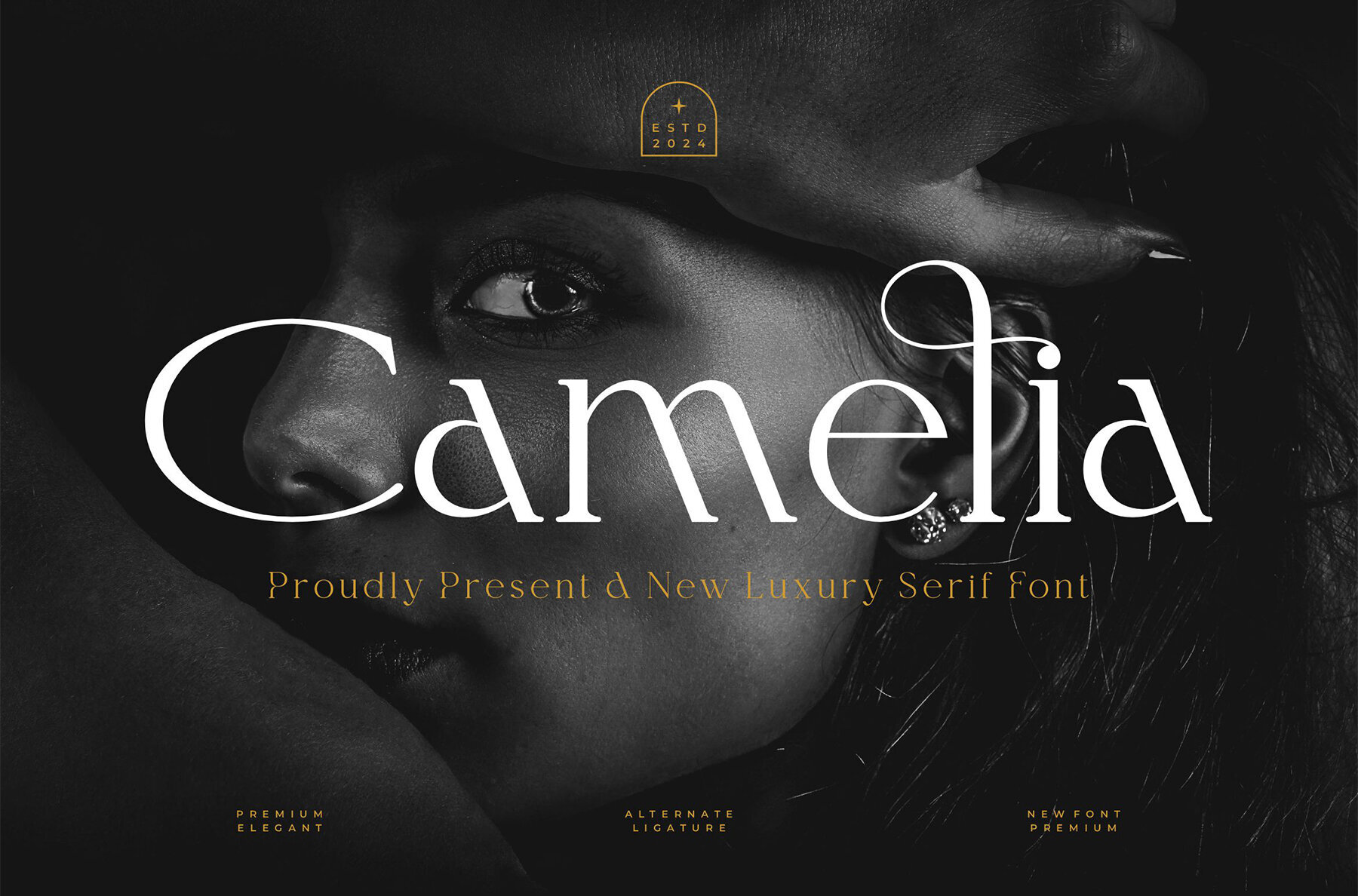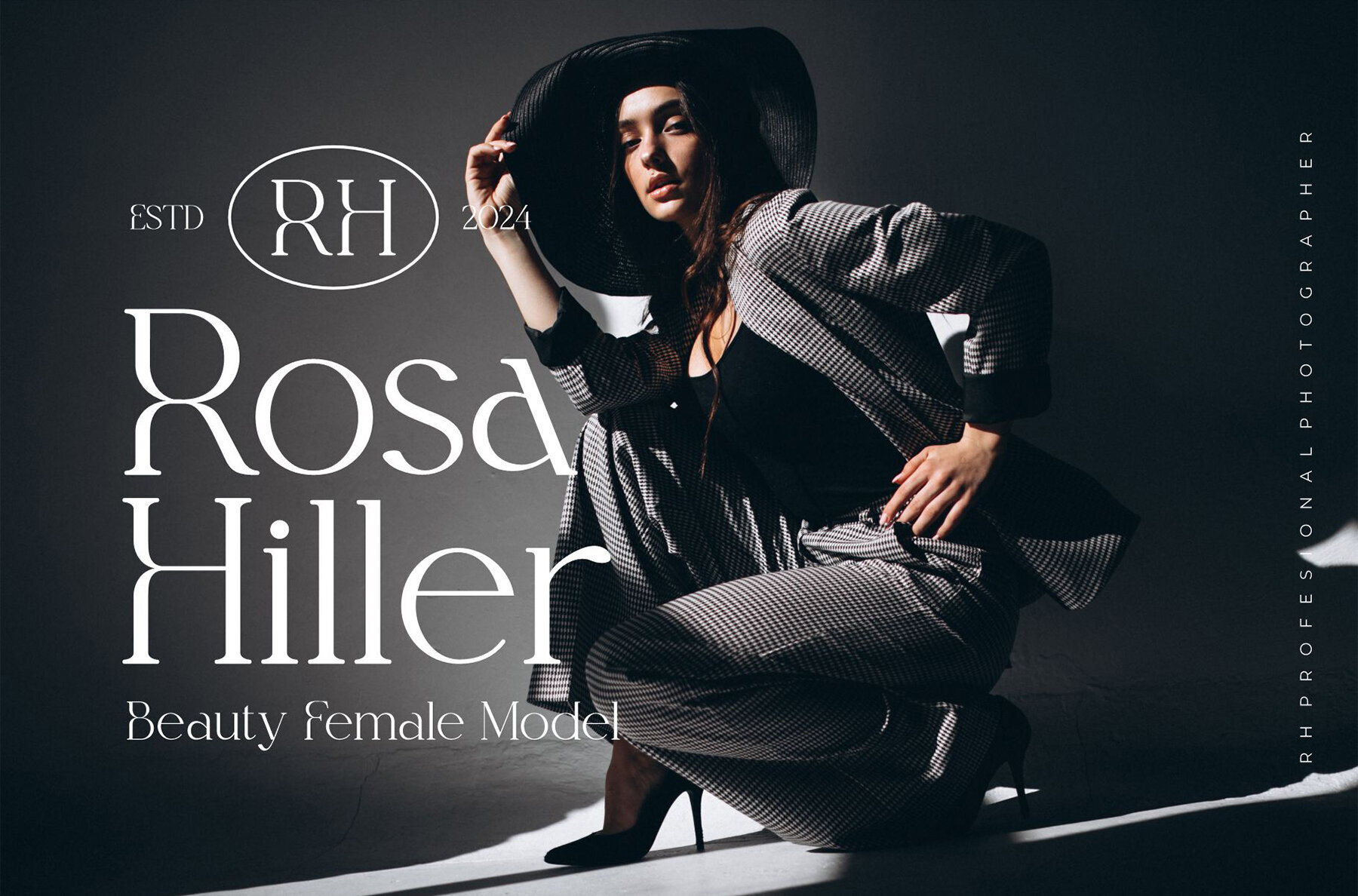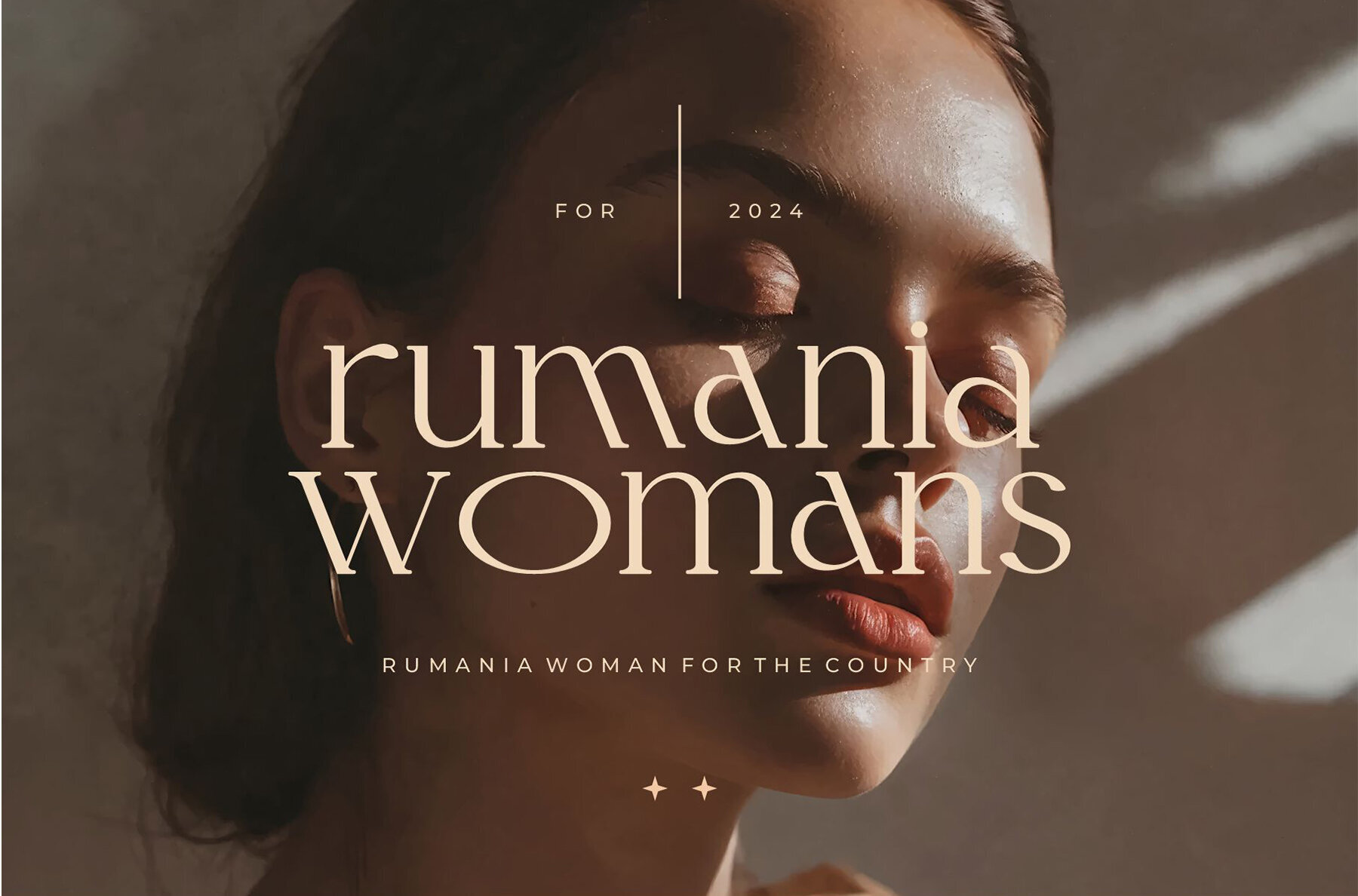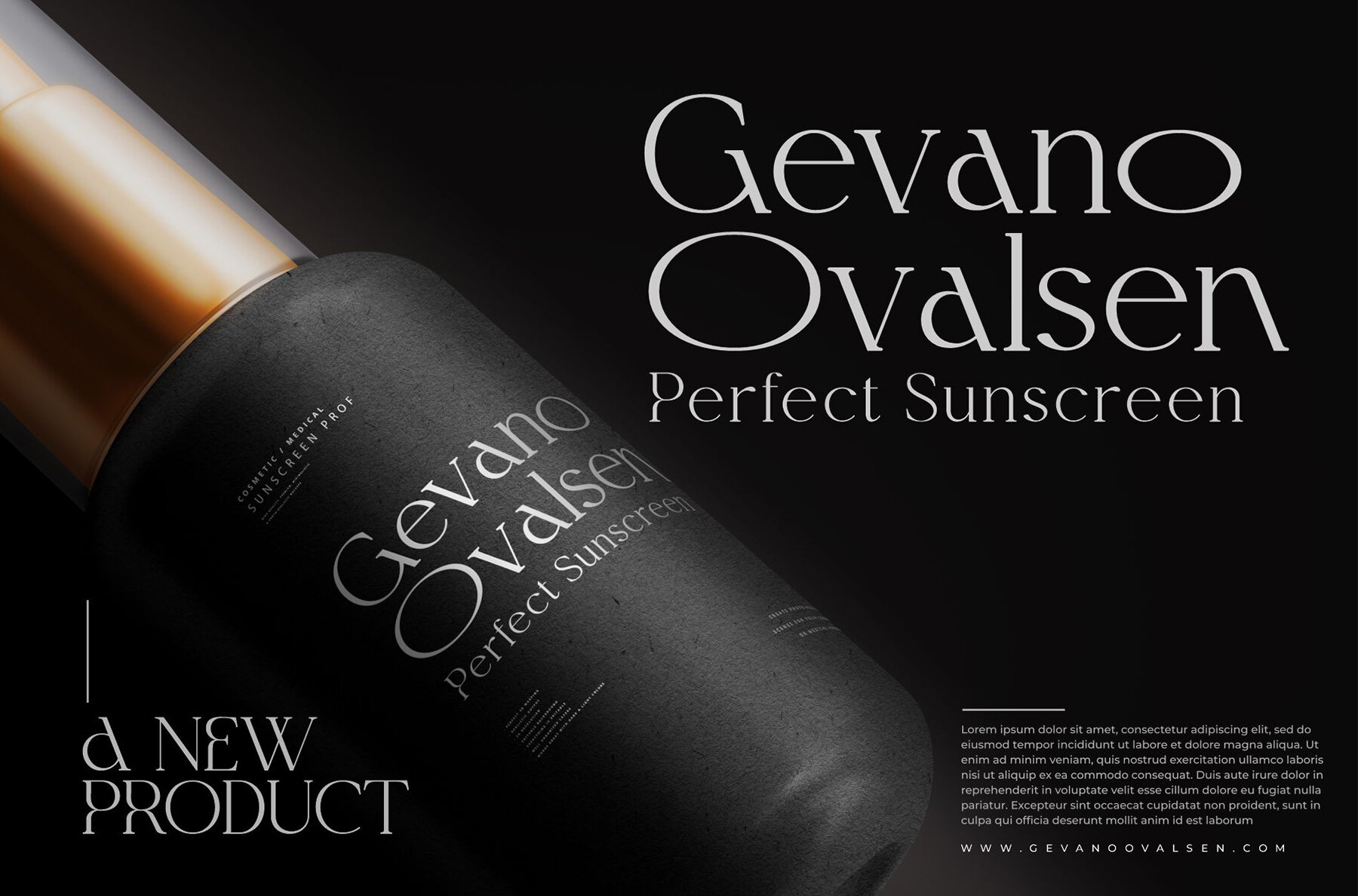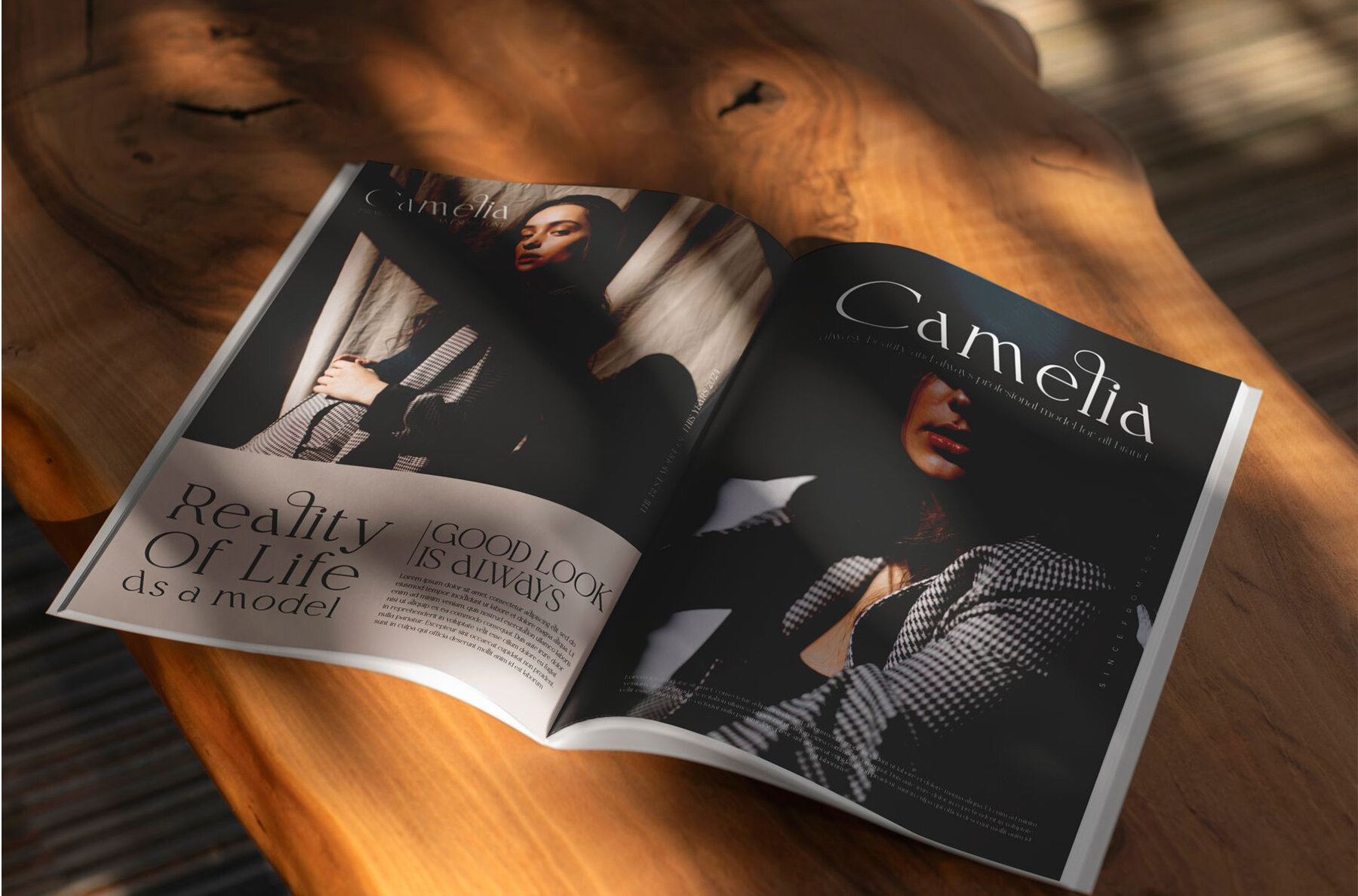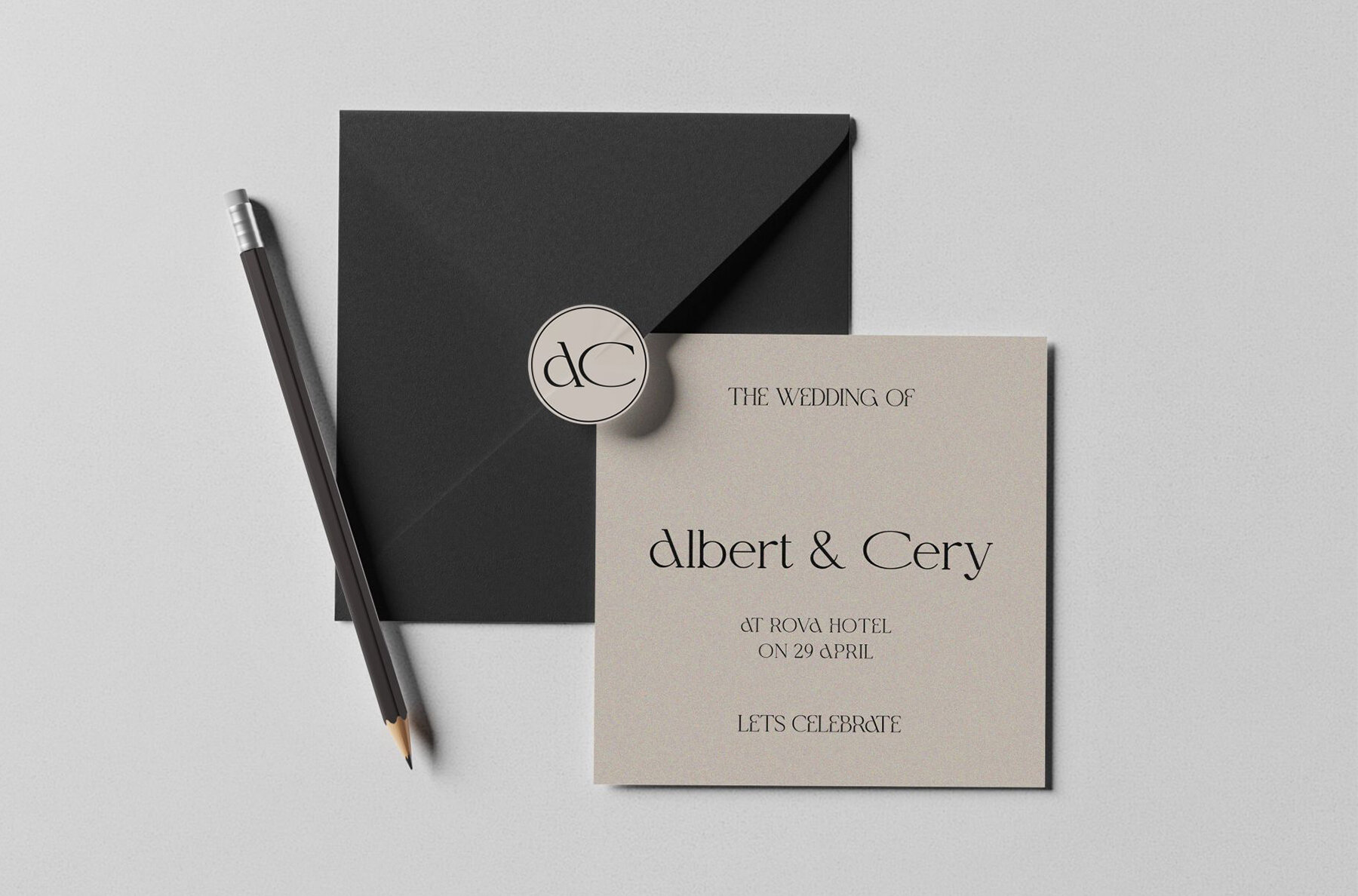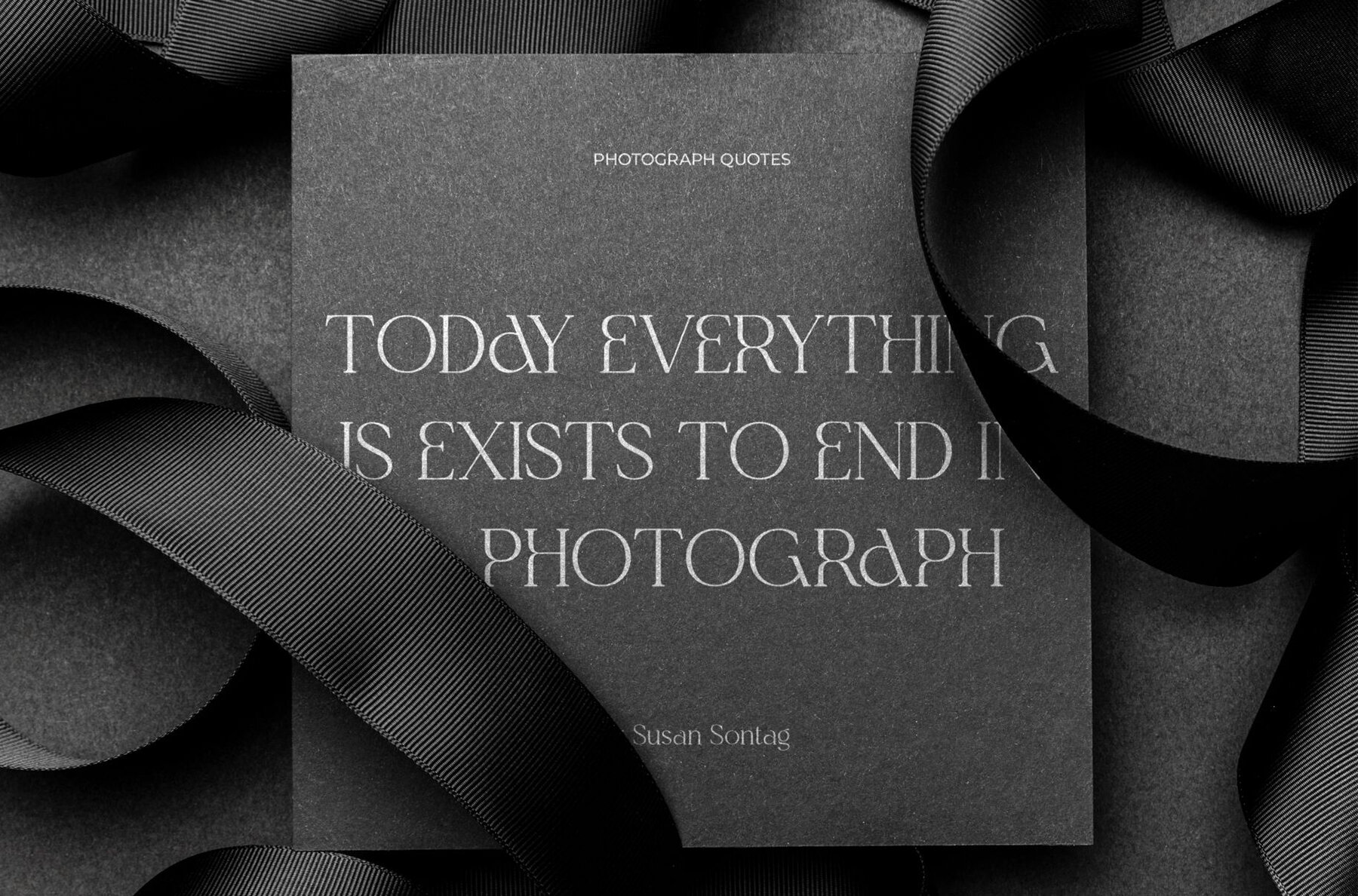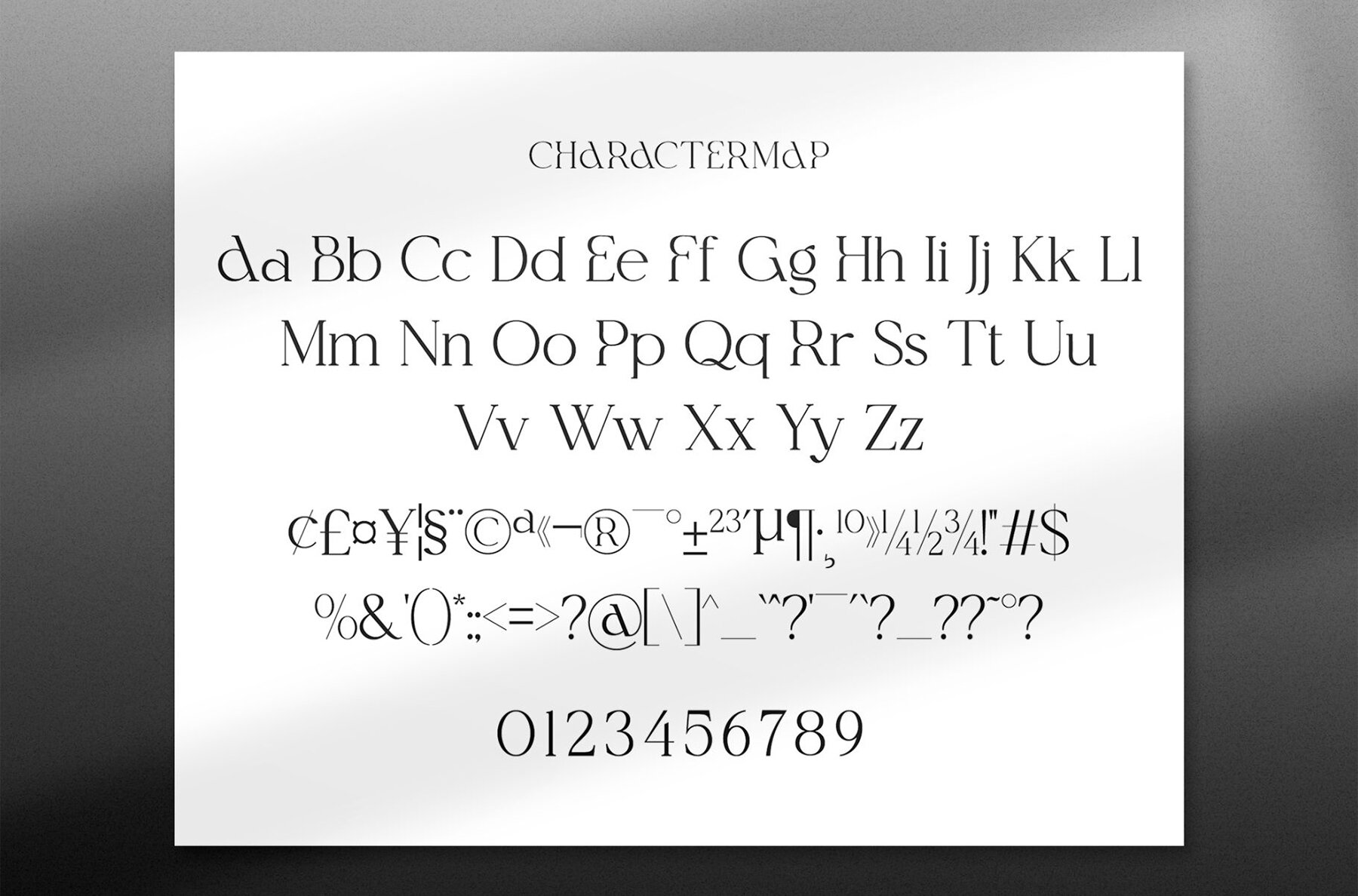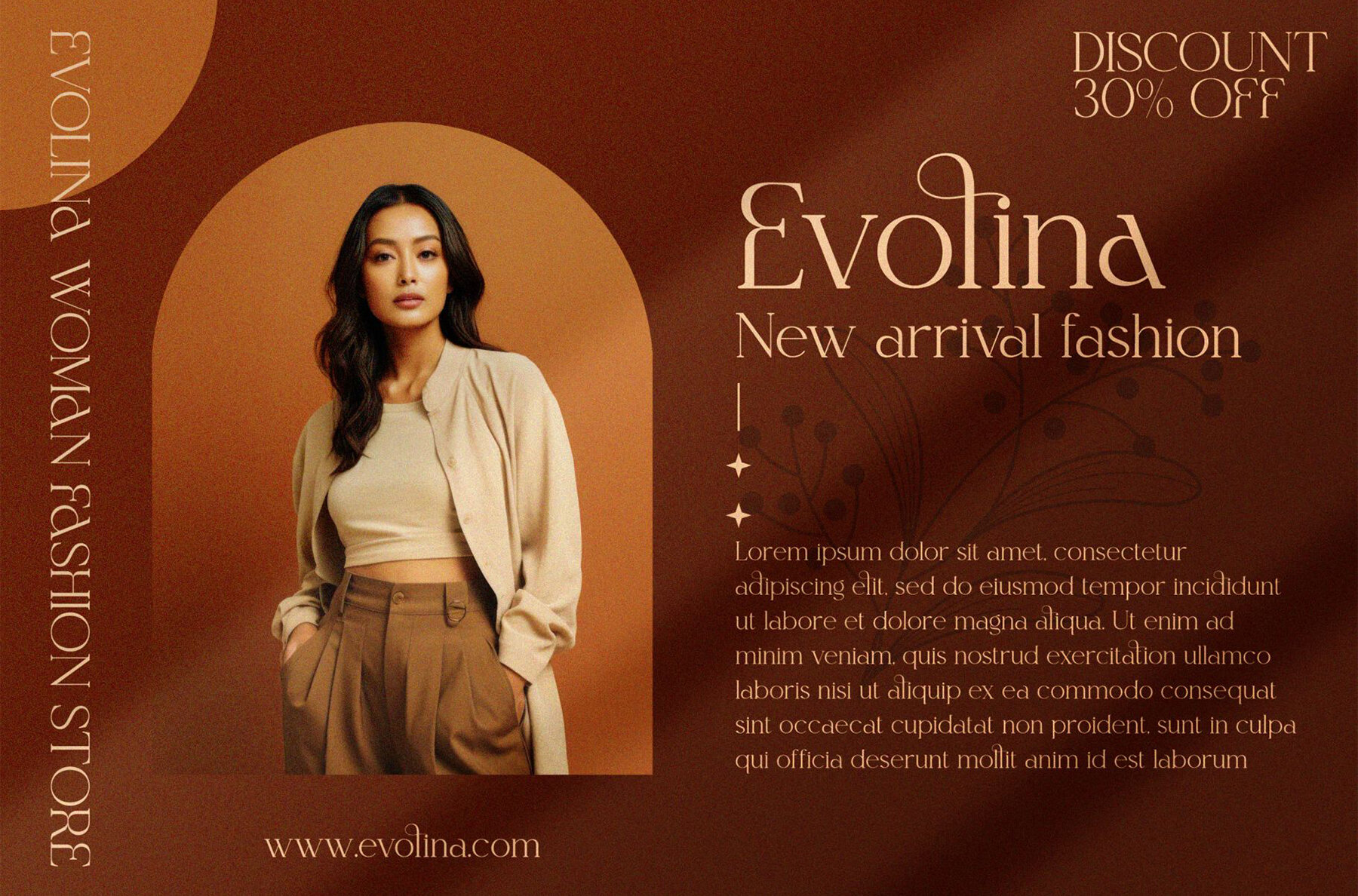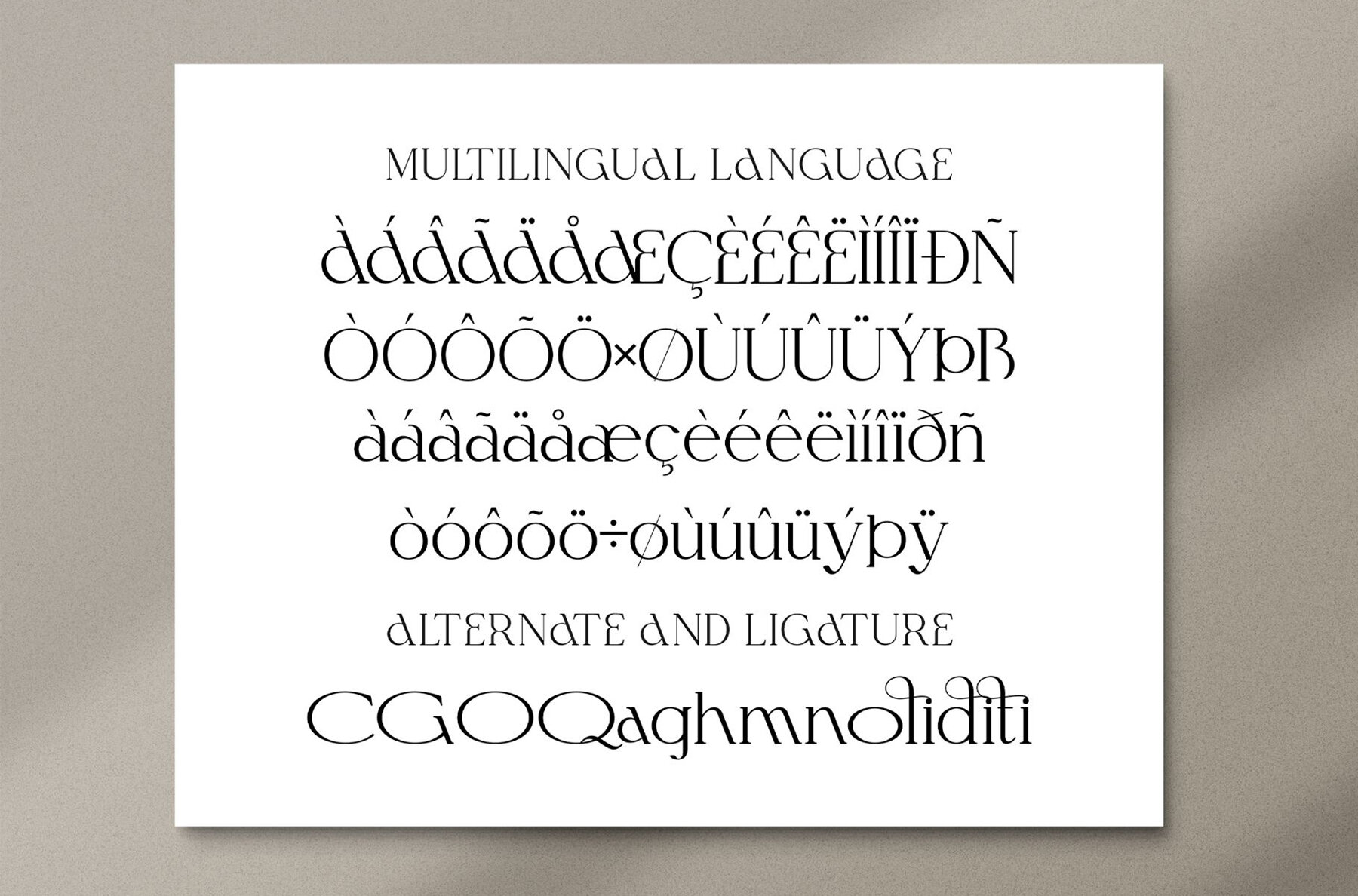
Camelia Font
Camelia Regular
Camelia Serif is a refined and sophisticated typeface offering elegance and class for a range of design projects. This modern serif font boasts an appealing character, making it an excellent choice for branding, logos, invitation cards, movie titles, business cards, book titles, and brand names. Its smooth design provides an upscale vibe, enhancing the overall aesthetics of your creations.
The stylish alternations and ligatures of Camelia Serif add a unique touch, elevating your project to a level of sophistication and elegance. Ideal for graphic and digital designers seeking a classy yet modern serif font, Camelia Serif fits seamlessly into various design needs, ensuring a polished and professional appearance.